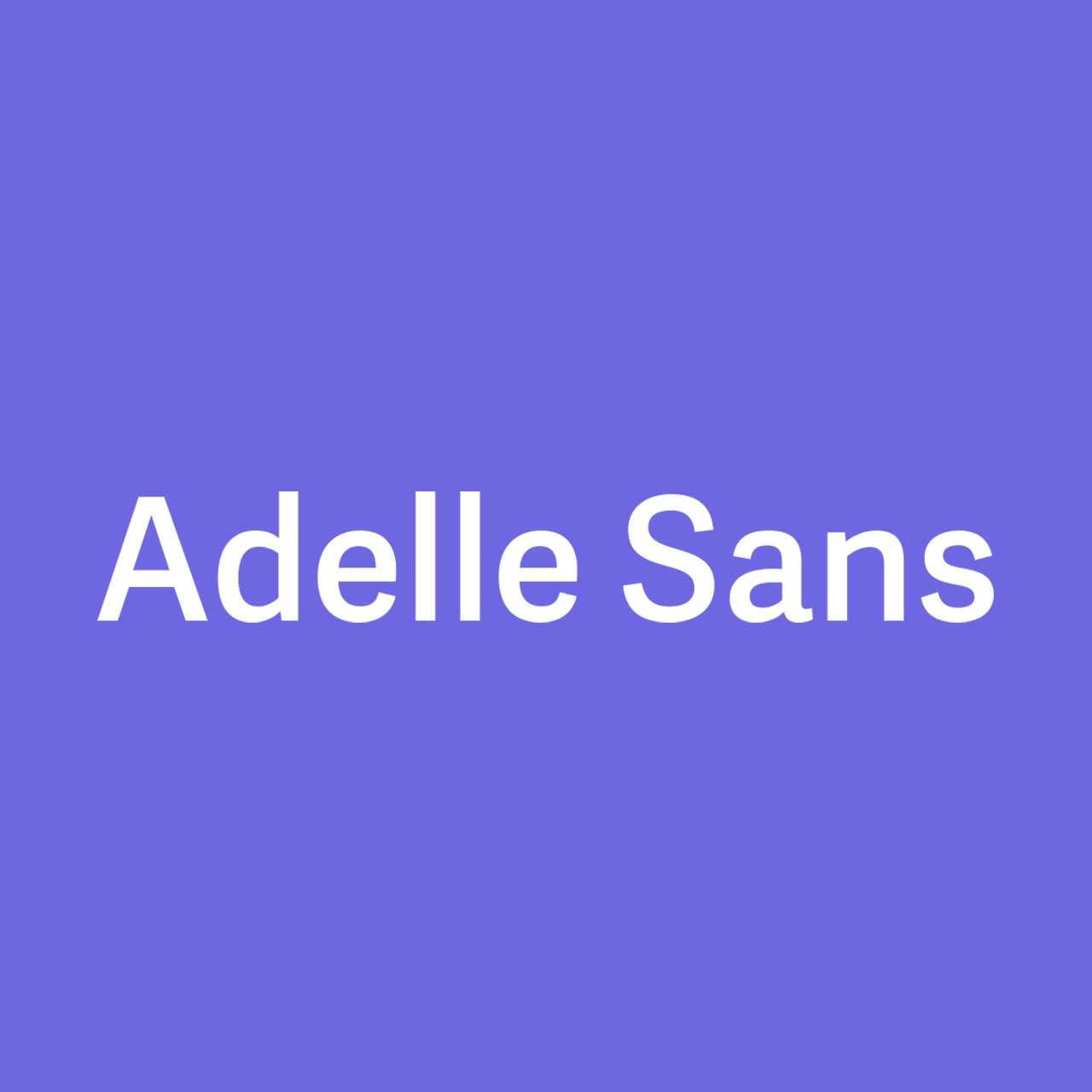
Adelle Sans
Adelle Sans develops existing SANS to create a clean and lively feeling.
When Adelle Sans is used in brands, signs or ads, 'flexibility' is always melted.
Adel's 16 styles are perfectly harmonized in terms of Slab Serif, weight and vertical ratios, respectively.
In addition, the two font familys in the same text block are in harmony and ensure a good texture change when using the same point size.
Adele Sans is a complete family that provides extensive language support such as Arabic, Armenian, Cyrillar, and Greek, and is currently produced in four languages.
Adelle Sans
• Veronica Brian
TypeTogether, Foundry